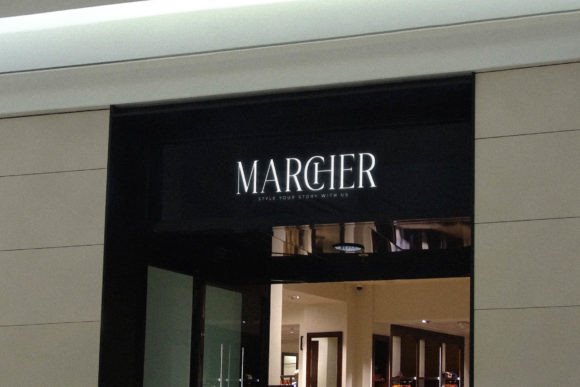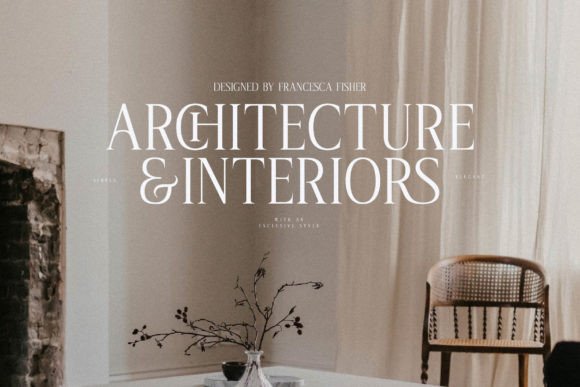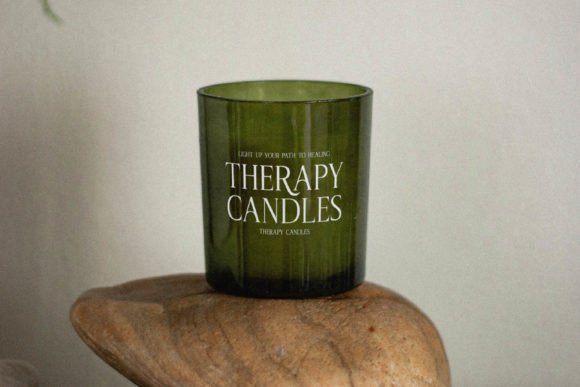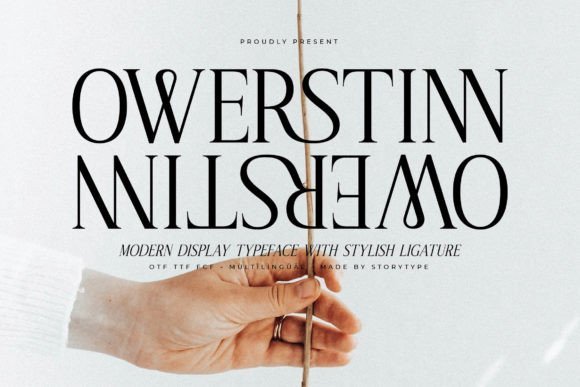
Introduction to Owerstinn Font
Owerstinn is a modern and stylish serif font that has its own unique appearance.
This typeface is perfect for an elegant and luxurious logo, fashion brands, magazines, apparel, lettering, quotes, and so much more .